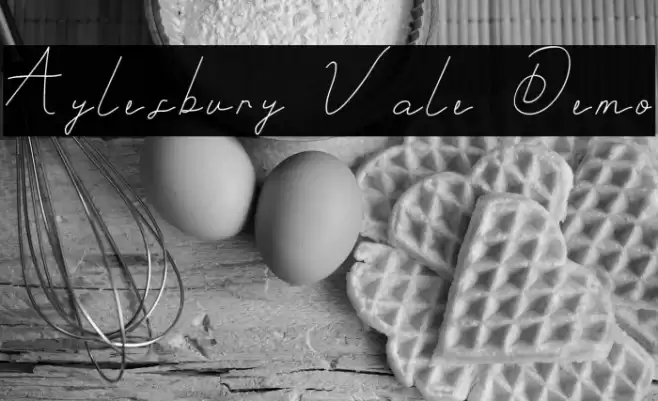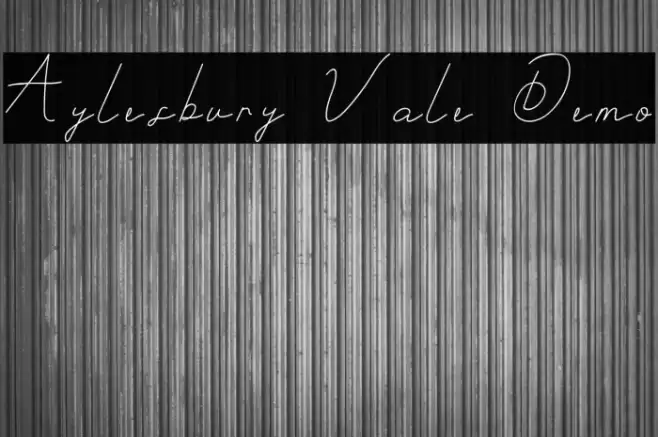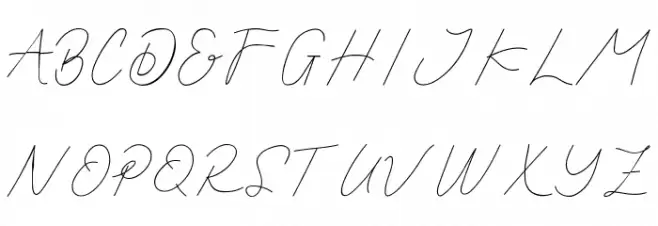
Aylesbury Vale Demo Font
Aylesbury Vale Demo Description
This font exhibits a delicate and flowing script style, characterized by its elegant, cursive letterforms. The uppercase letters are gracefully connected, creating a sense of fluidity and movement. The lowercase letters maintain a consistent slant, enhancing the handwritten appearance. The strokes are thin and uniform, contributing to a light and airy feel. This font's overall aesthetic is both sophisticated and approachable, making it suitable for a variety of design applications. The spacing between characters is moderate, ensuring readability while maintaining the script's natural flow.
A delicate, flowing script font with elegant cursive letterforms from Regular fonts.
- Proposed Projects: Ideal for wedding invitations, personal branding, greeting cards, and elegant packaging designs.
- Overall Style: Elegant
- Use Case: Logos, Invitations, Decorative text